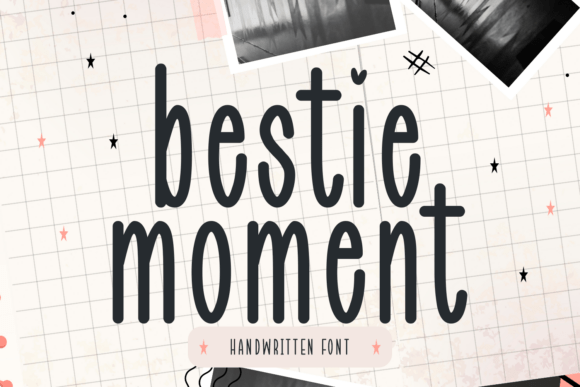
The Bestie Moment Font: A Designer’s New BFF
I still remember the design moment that led me to fall in love with the Bestie Moment font. I was working on a wedding invitation project for a client who wanted something romantic, elegant, and modern. I had spent hours browsing through font libraries, but nothing seemed quite right. That was when I stumbled upon Bestie Moment, and it instantly became my go-to font for the project. Its unique charm, trendiness, and feminine appeal won me over, and I’ve been hooked ever since.
So, what makes Bestie Moment so special? Let’s dive into the good stuff and a few quirks I’ve discovered.
- ✨ Romantic and feminine appeal: Perfect for wedding invitations, love quotes, and Valentine’s cards.
- ✅ Trendiness and modern elegance: Great for designing logos, social media posts, product labels, and fashion-related content.
- ✨ Stylish and versatile: Suitable for making beautiful sublimation prints, bold headlines, crafts, wallpapers, and decorative pieces.
⚠️ While Bestie Moment is an amazing font, it’s not without its limitations. For instance, some users have reported issues with kerning and spacing, particularly when using the font at smaller sizes. However, these issues can often be resolved by adjusting the font settings or using a different font size.
🤔 Another potential drawback is that Bestie Moment may not be the best choice for very formal or traditional designs, as its handwritten style can come across as somewhat informal.
The story behind Bestie Moment is one of passion and creativity. According to its designer, the font was inspired by the joy of creating something beautiful and unique. The designer’s goal was to craft a font that would evoke feelings of love, happiness, and playfulness – and I think they’ve succeeded!
| What is the best use for Bestie Moment font? | Bestie Moment is perfect for designing romantic and feminine content, such as wedding invitations, love quotes, and Valentine’s cards. |
| Is Bestie Moment easy to read? | Yes, Bestie Moment is a clear and legible font, making it easy to read in various contexts. |